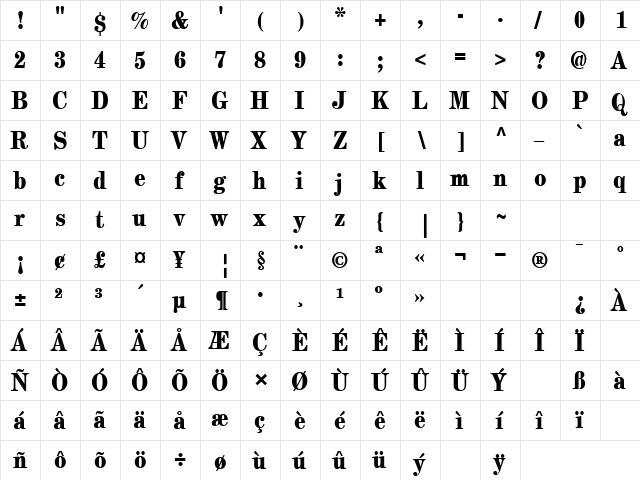
NewCenturyThin Bold
Design Context for NewCenturyThin Typeface
NewCenturyThin is a composed and adaptable typeface that performs quietly and consistently across a wide range of design contexts. The heavy weight commands attention and anchors typographic hierarchies.